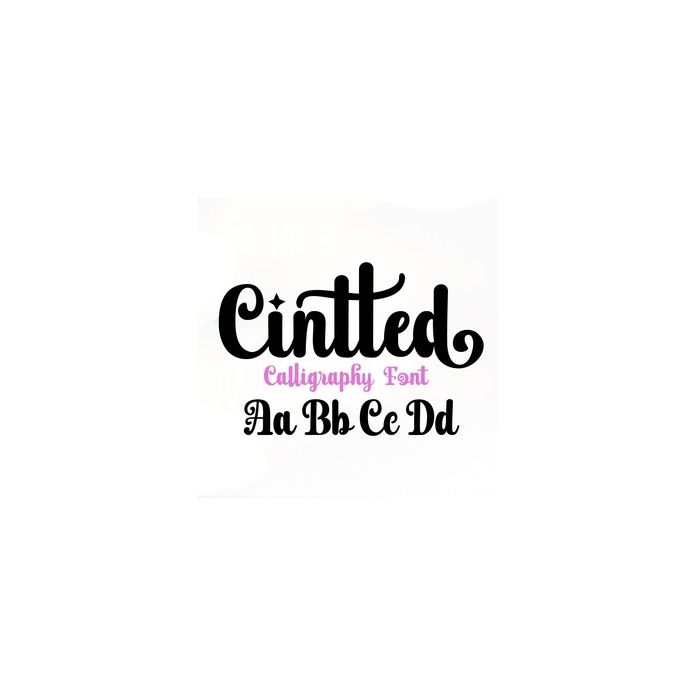
Cintted Beautiful and vibrant handwritten style, this is a beautiful original product, so it is uniformly used in today's design models. You can see and match with your big imagination!